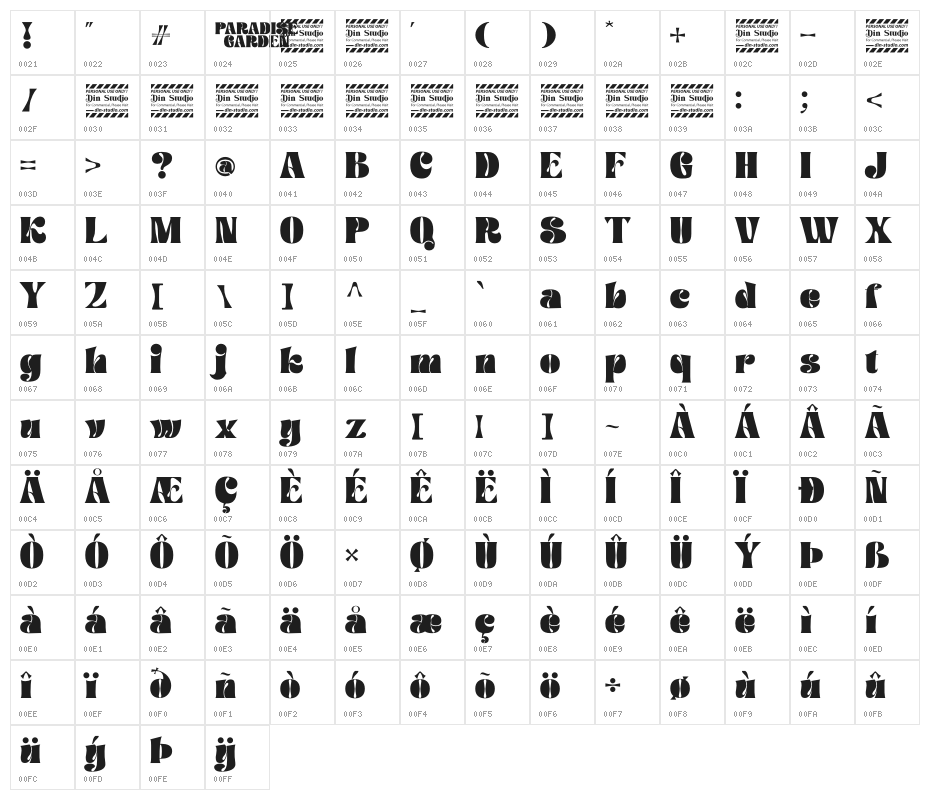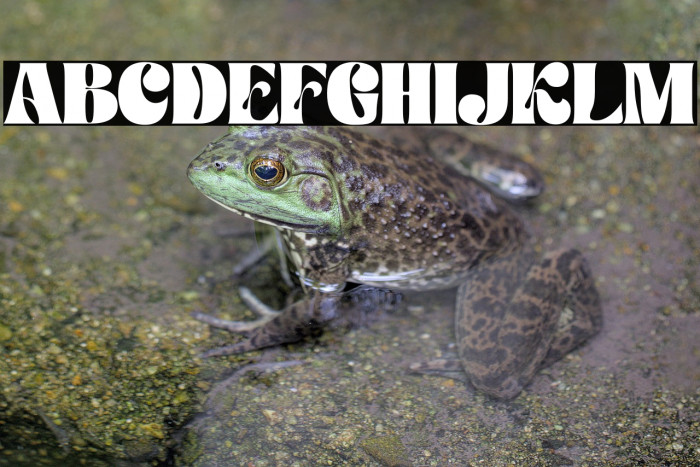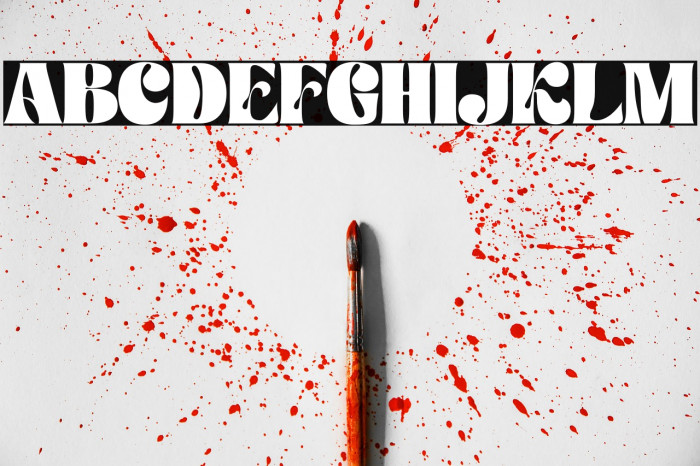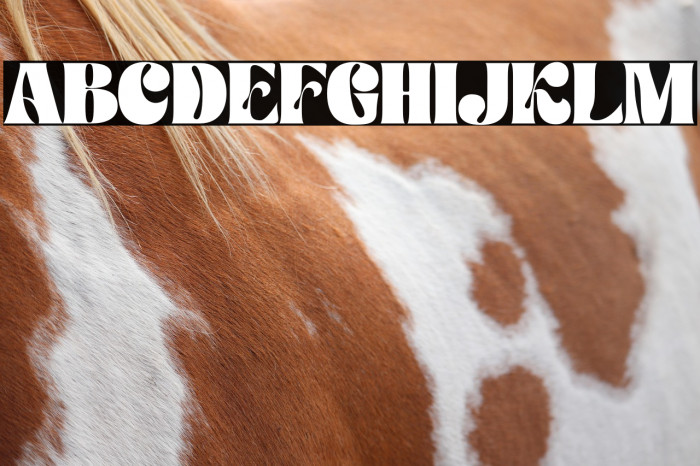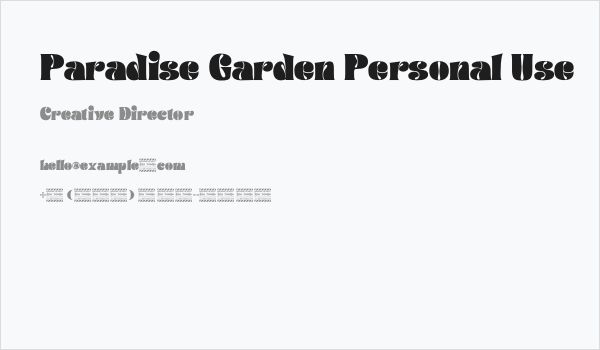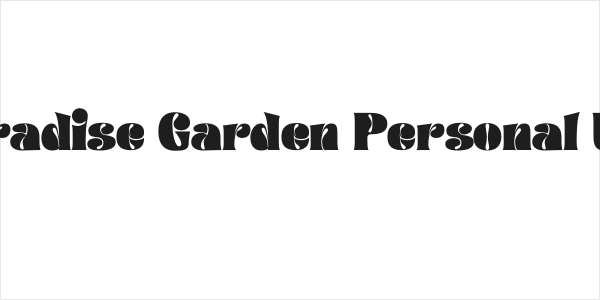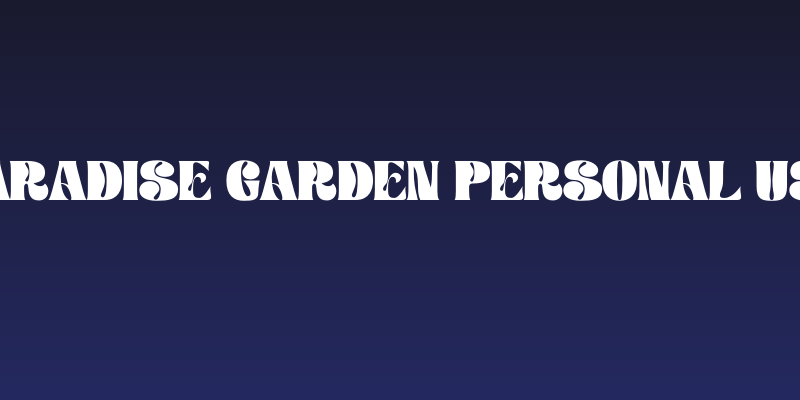
Paradise Garden Personal Use Font
Paradise Garden Personal Use Description
This font features a bold and decorative style with a unique flair, characterized by thick strokes and high contrast between thick and thin lines. The letters exhibit a playful and artistic design, with some characters having exaggerated curves and angles, giving it a dynamic and eye-catching appearance. The uppercase and lowercase letters maintain a consistent style, while the numbers and special characters complement the overall aesthetic. This font is suitable for projects that require a strong visual impact and a touch of creativity.
| Proposed Projects | Ideal for posters, branding, headlines, and creative design projects that require a bold statement. |